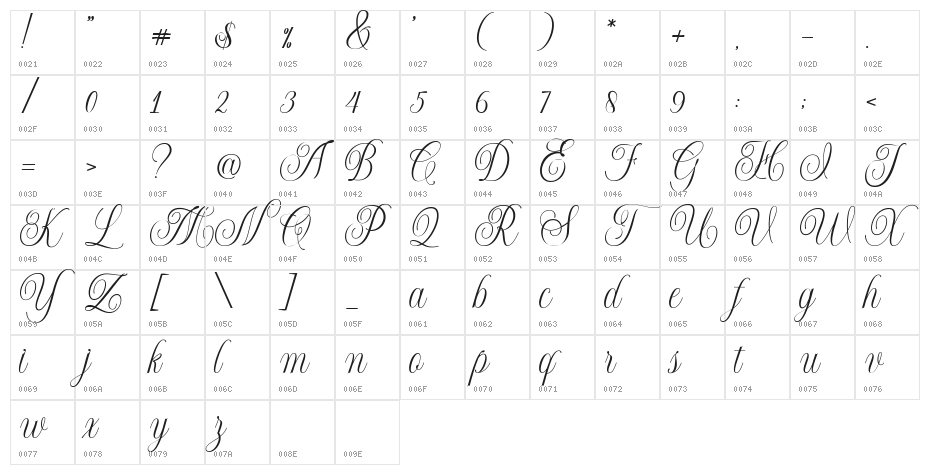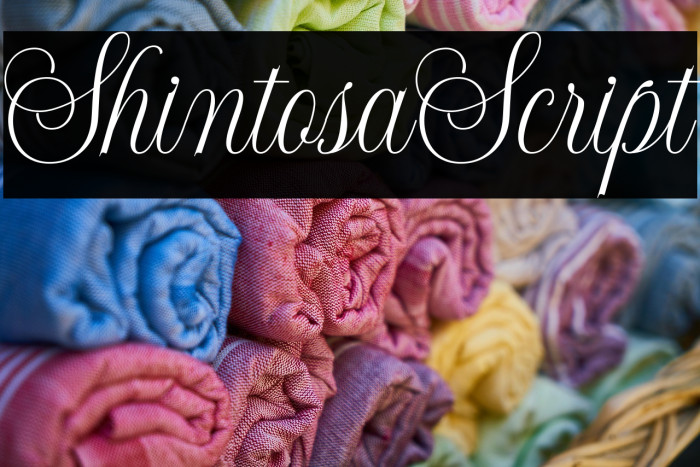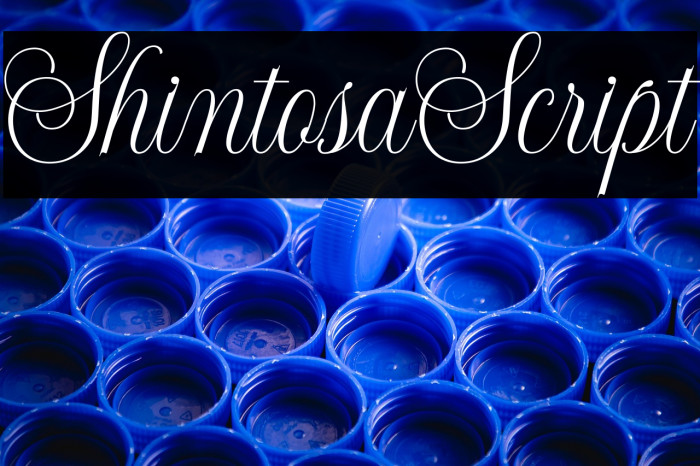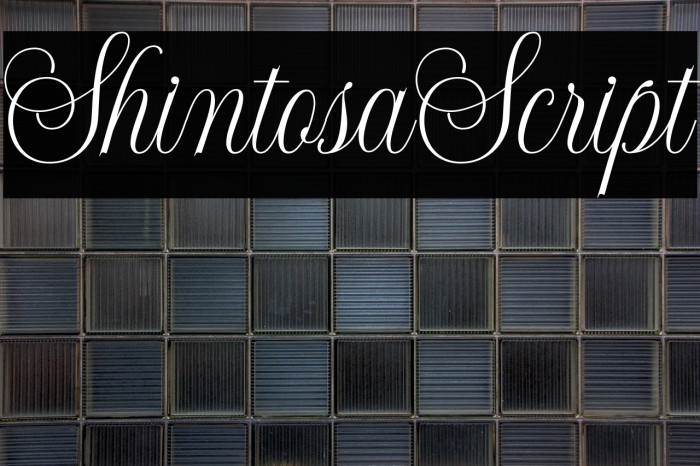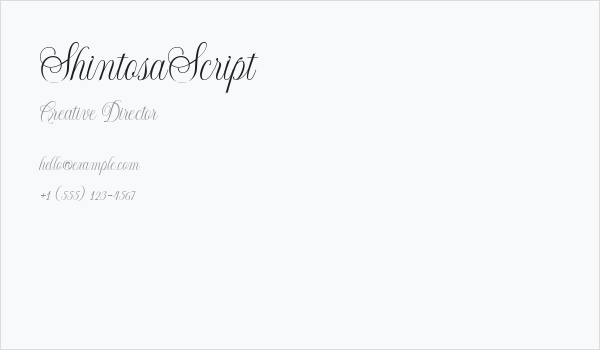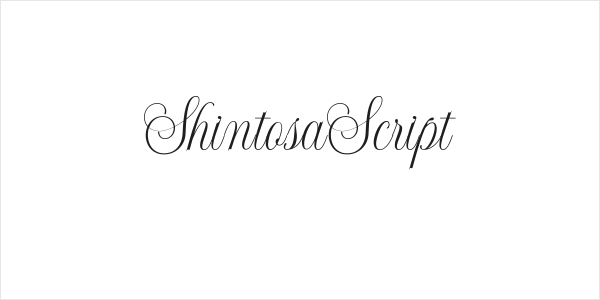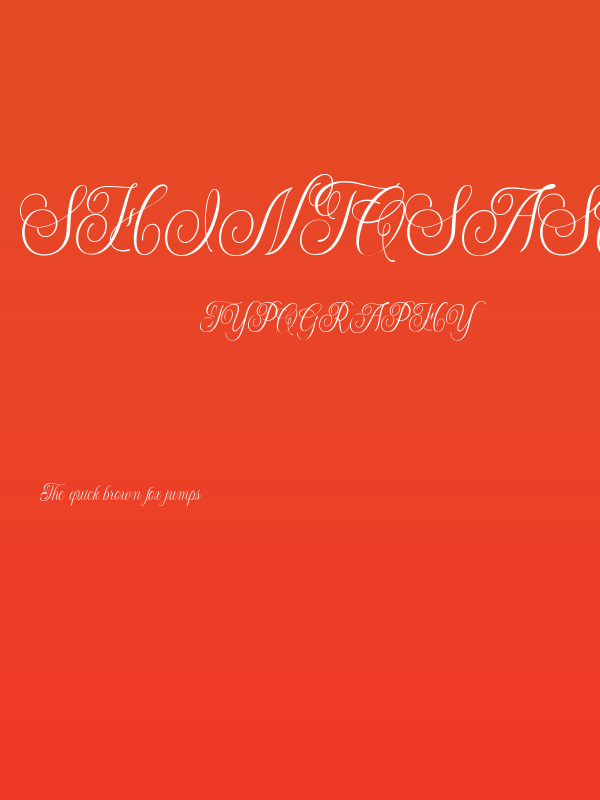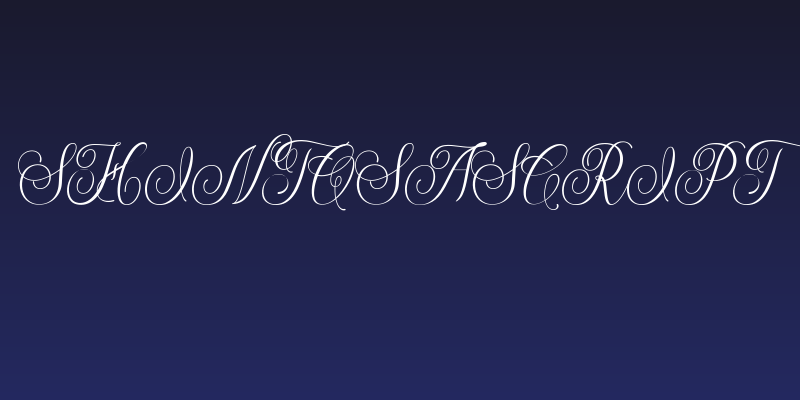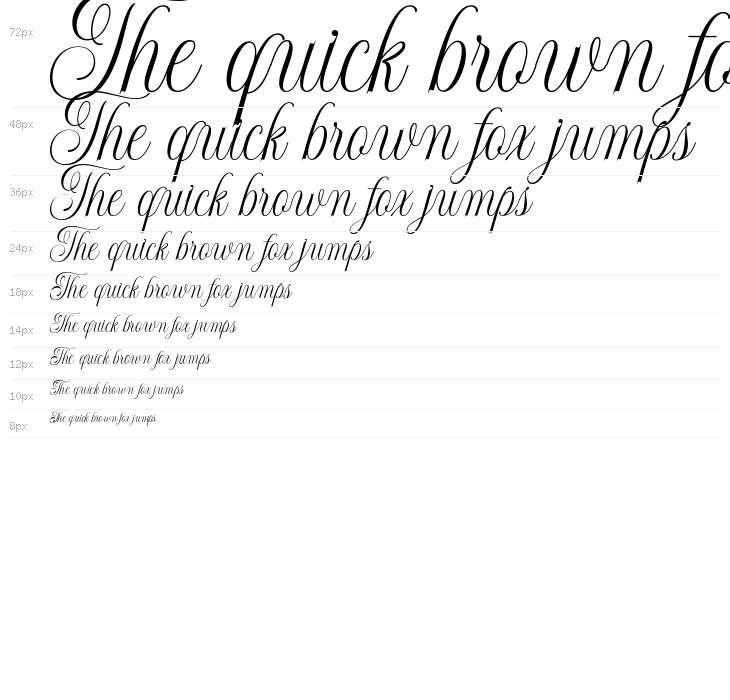
This elegant script font features a flowing, cursive style with intricate loops and swashes, giving it a sophisticated and artistic appearance. The uppercase letters are particularly ornate, with elaborate flourishes that add a touch of luxury and refinement. The lowercase letters maintain a consistent slant, enhancing the fluidity and grace of the text. The numerals are stylishly crafted, matching the overall aesthetic of the font. Special characters are included, each designed with the same attention to detail, making this font versatile for various design needs.
| Overall Style | Elegant, Artistic |
| Proposed Projects | Ideal for wedding invitations, luxury branding, elegant packaging, and artistic posters. |